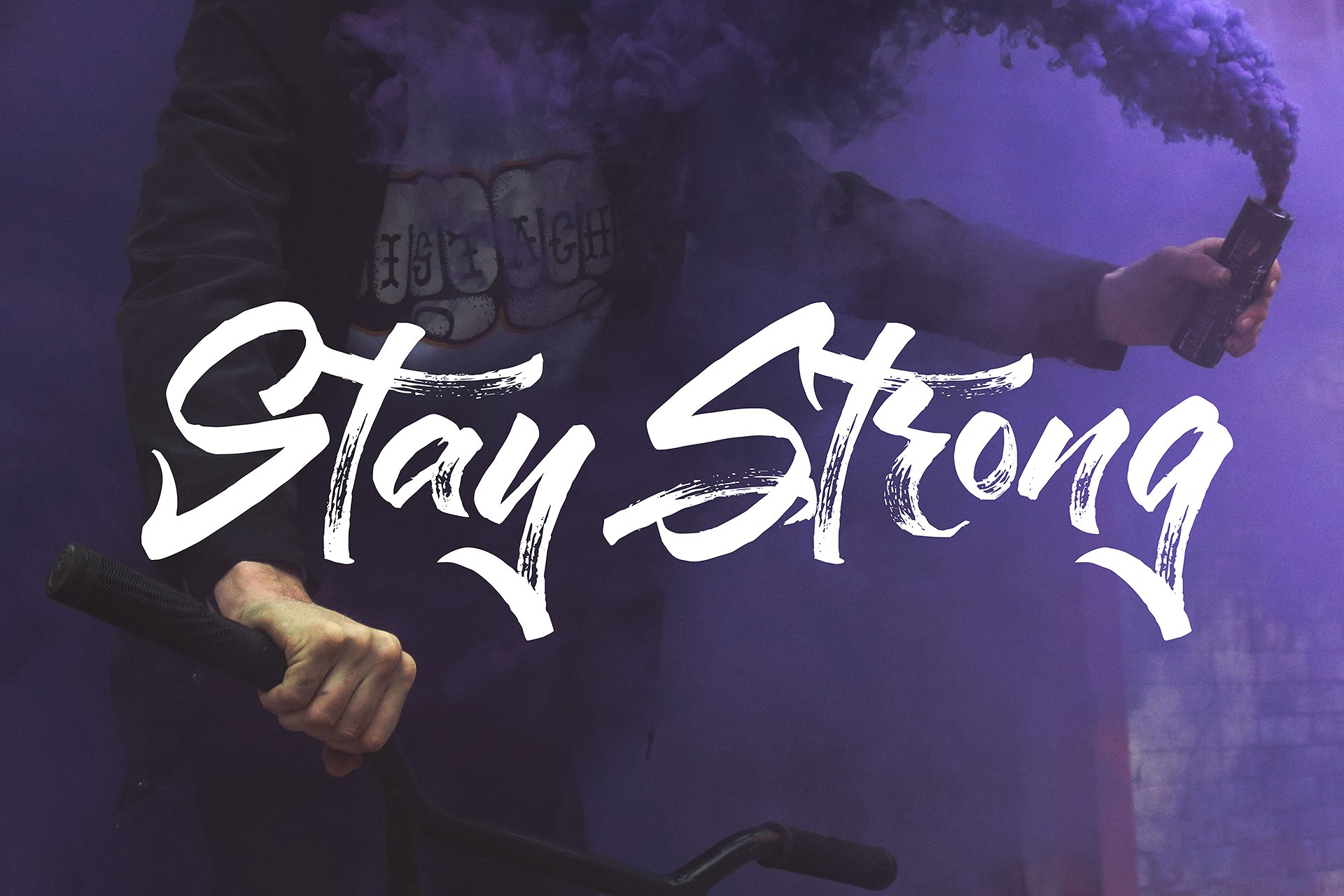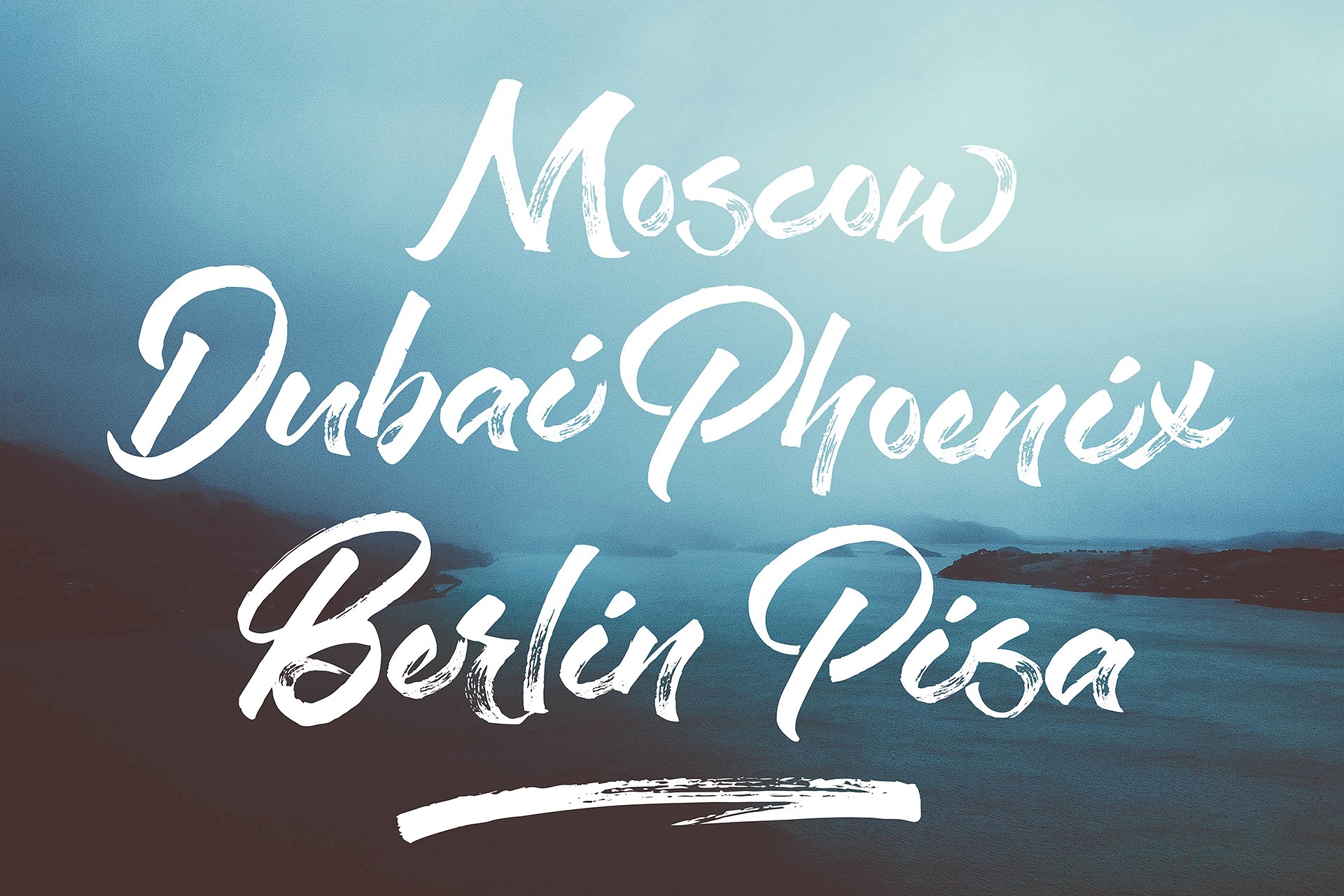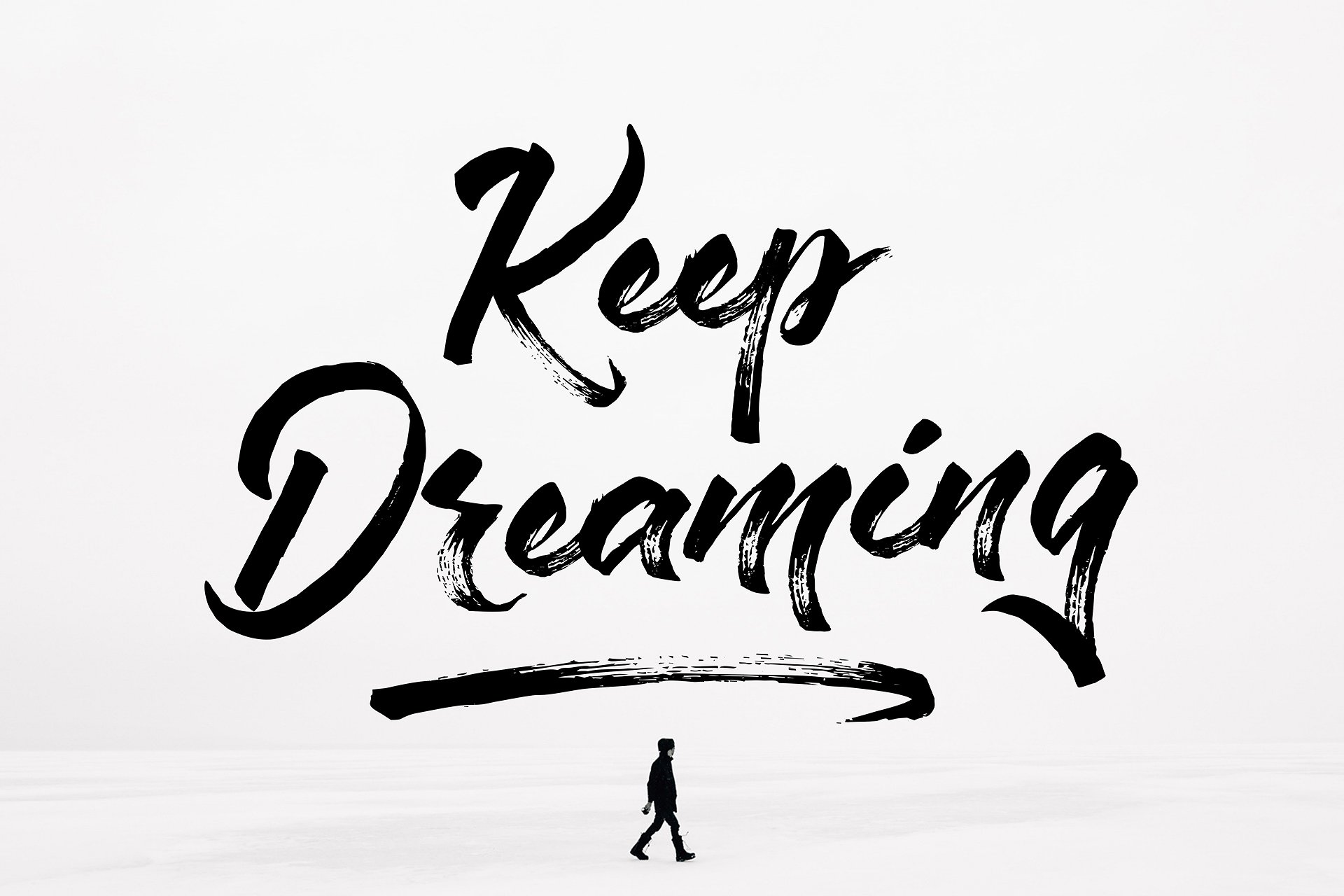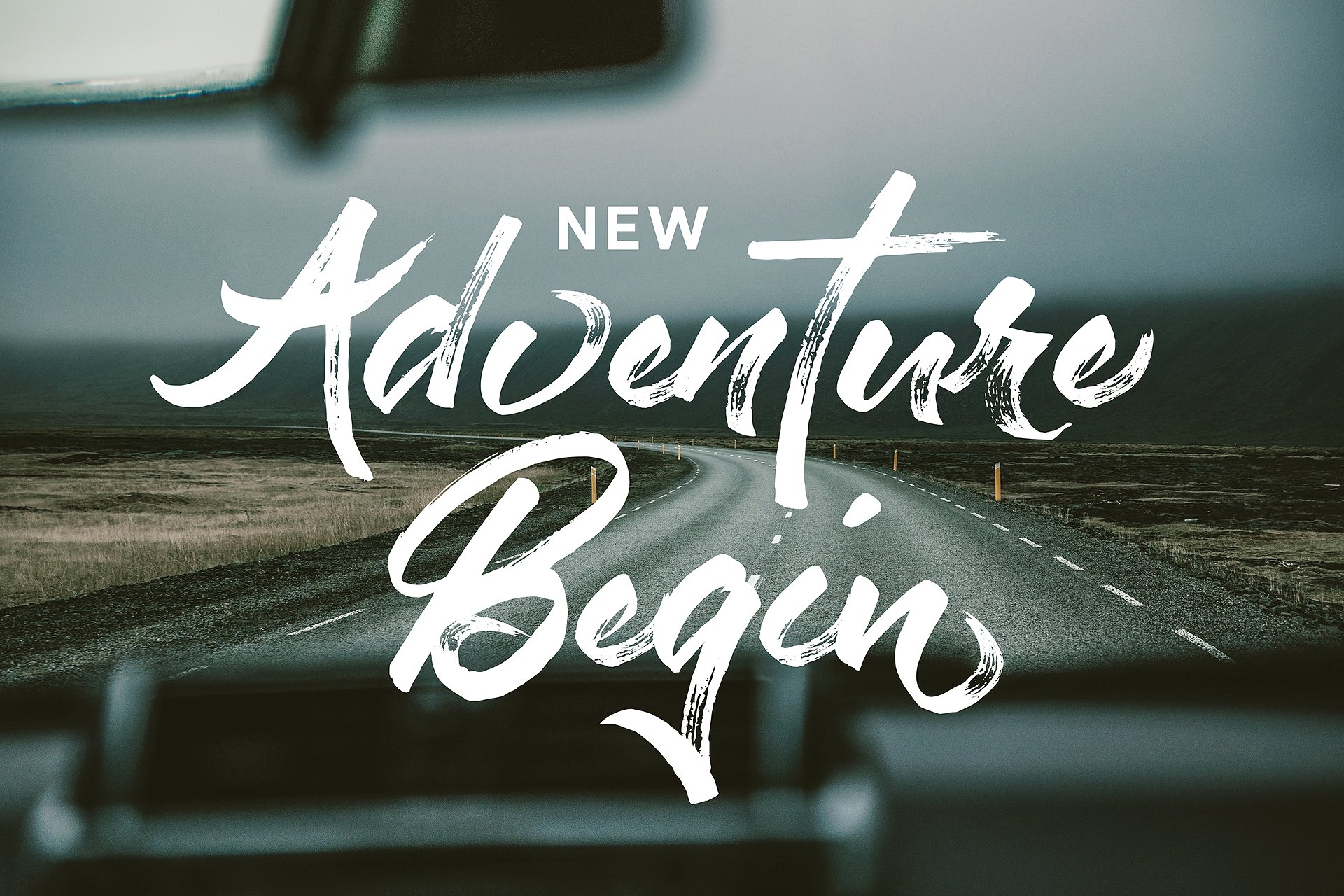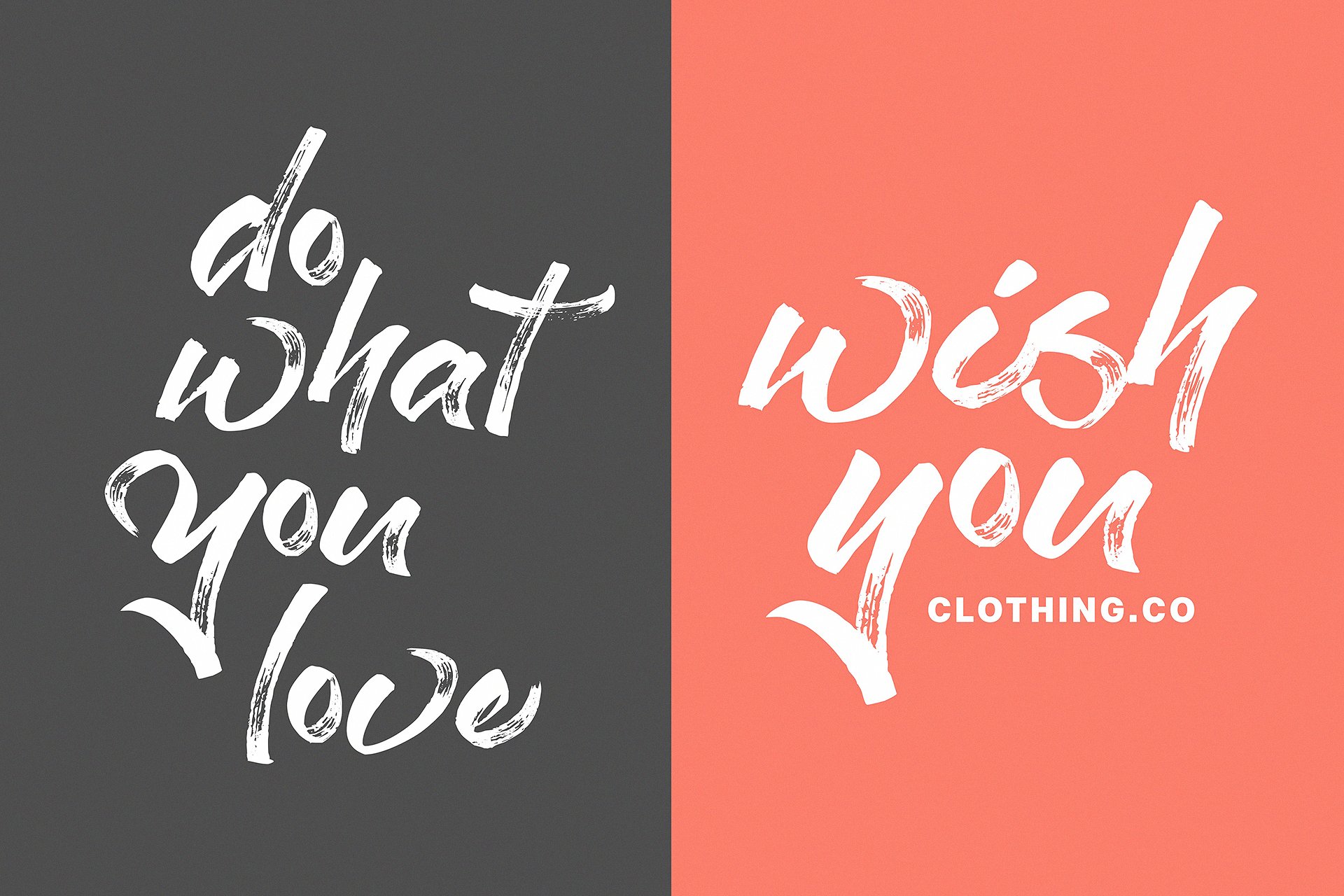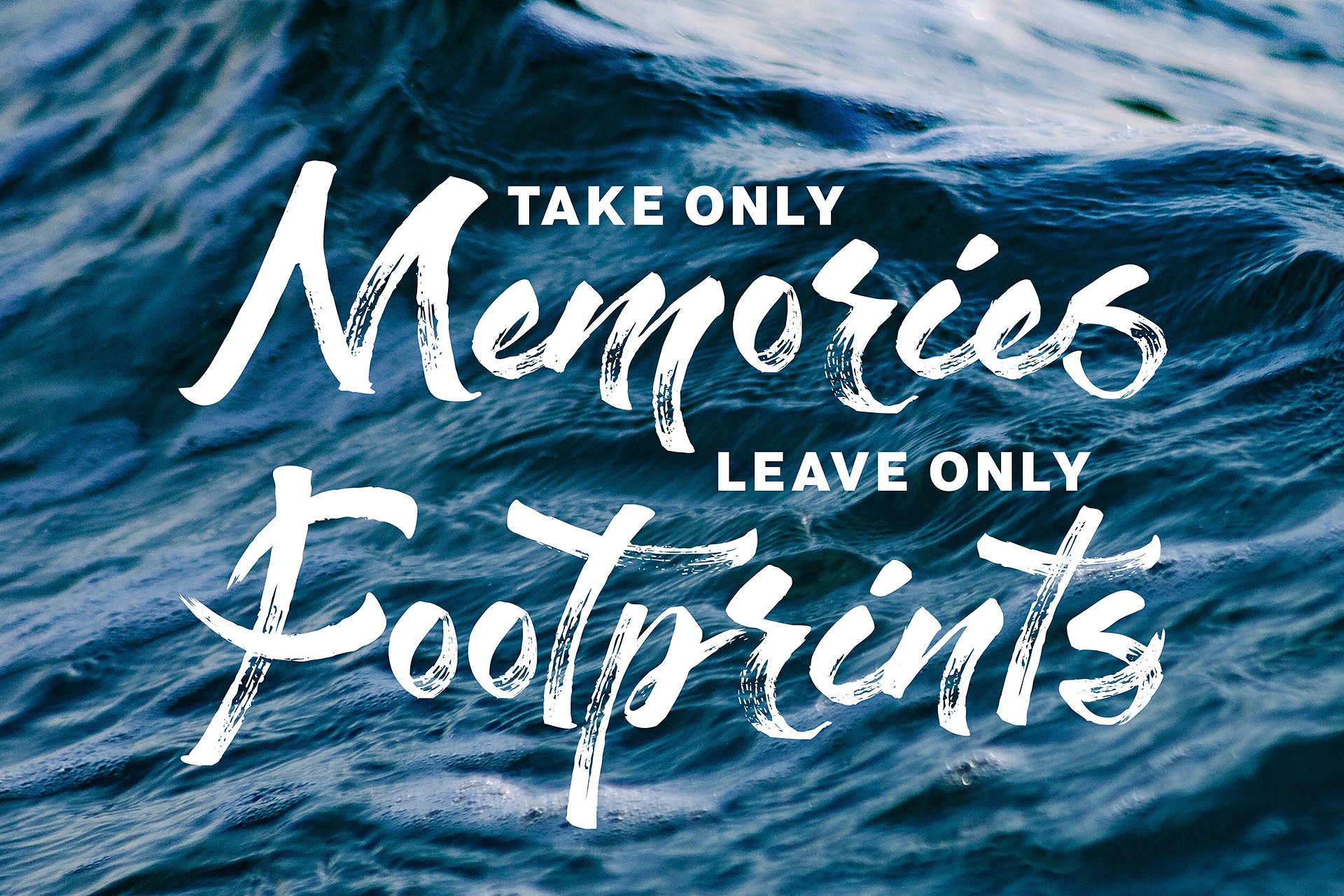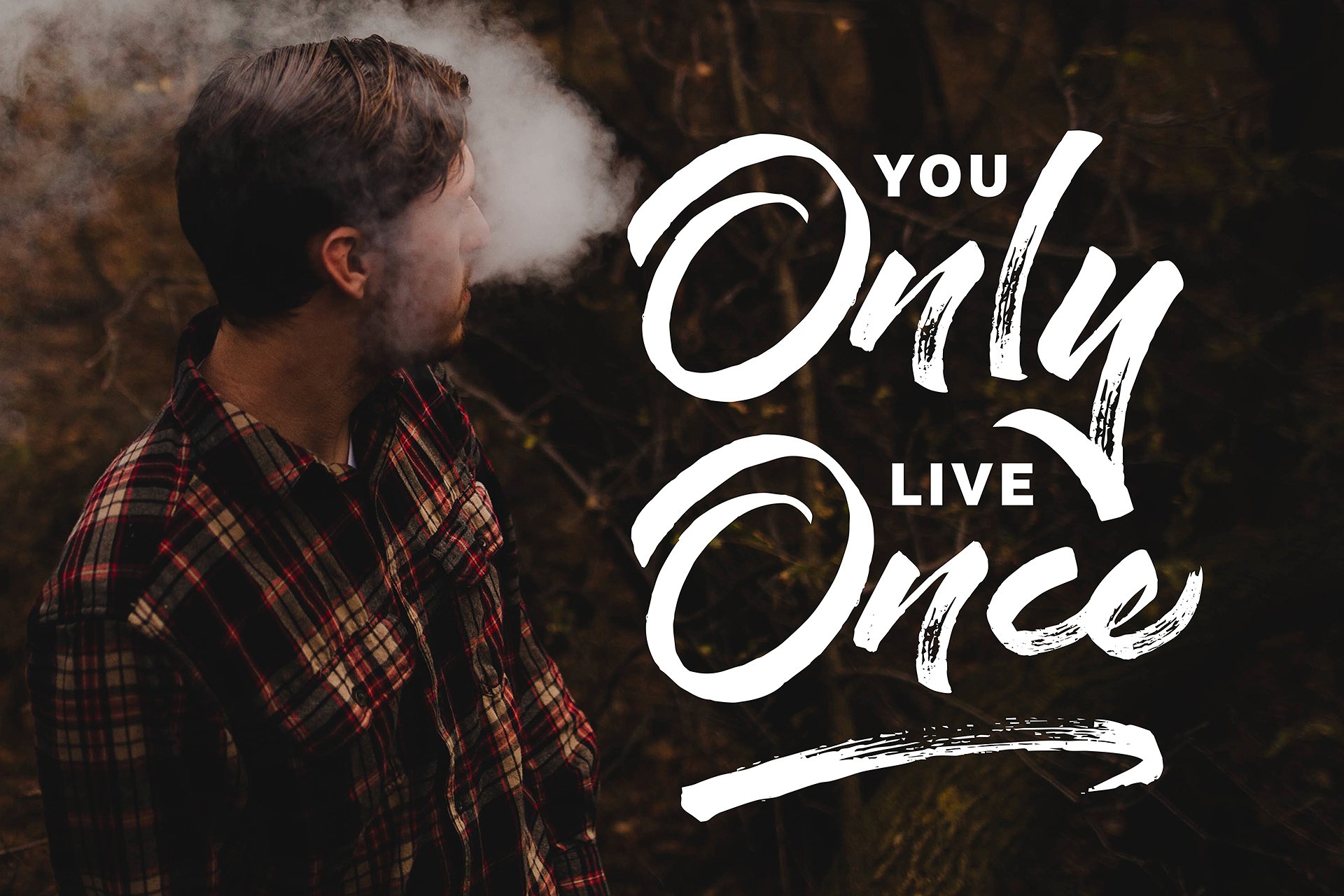
Staychill Font
About Staychill Font
Staychill is a stellar and unique textured brush font, handmade with an irregular baseline. This gives such an authentic and rustic look to any design, and is perfect for giving your creative projects a warm and homey feel.